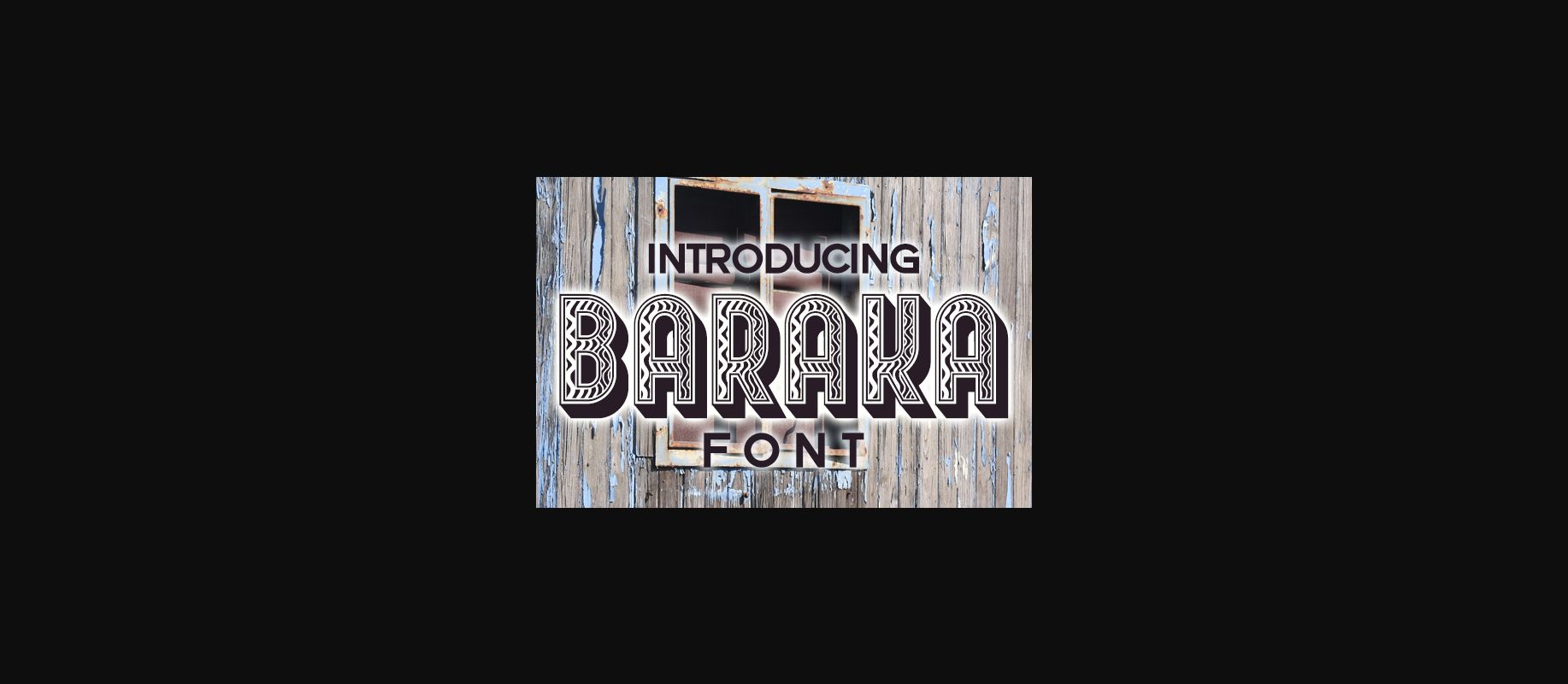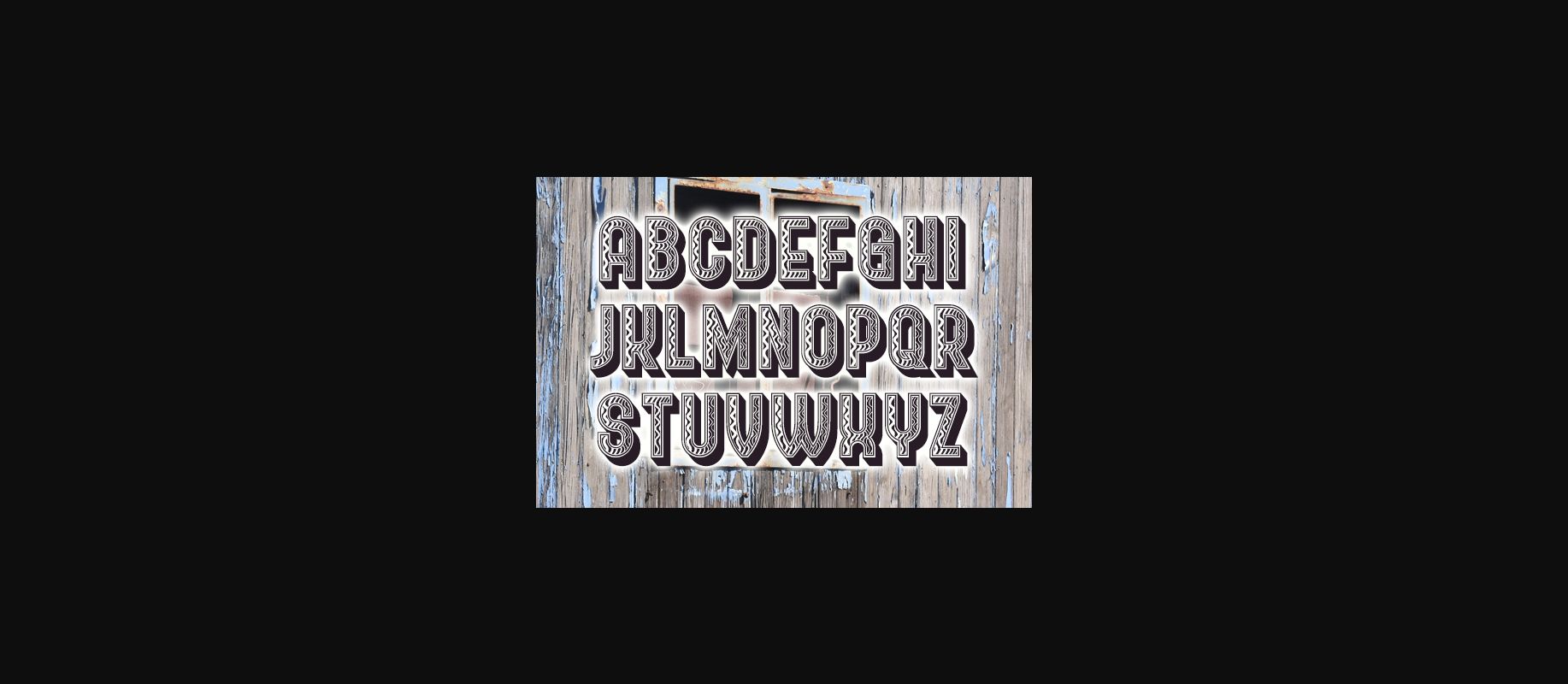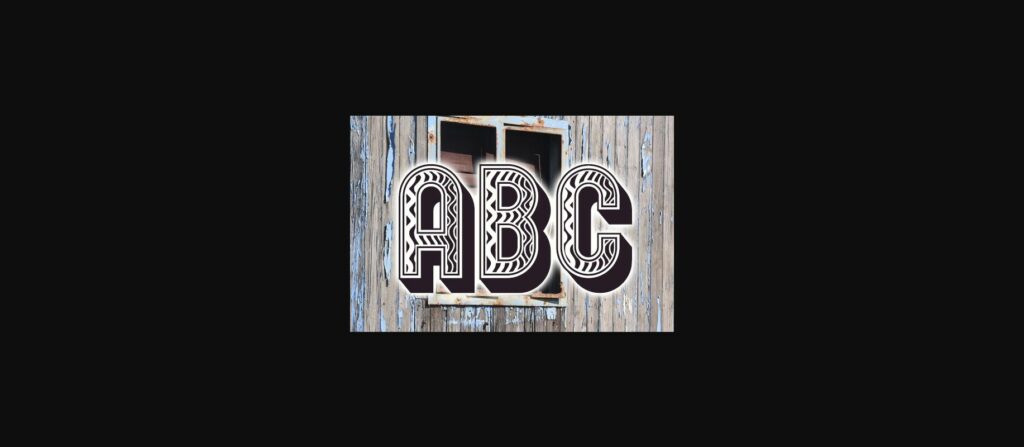
Baraka Font
About Baraka Font
Baraka is a thick lettered, bold 3D decorative font. It will look stunning on any banner, poster or print that you wish to create!